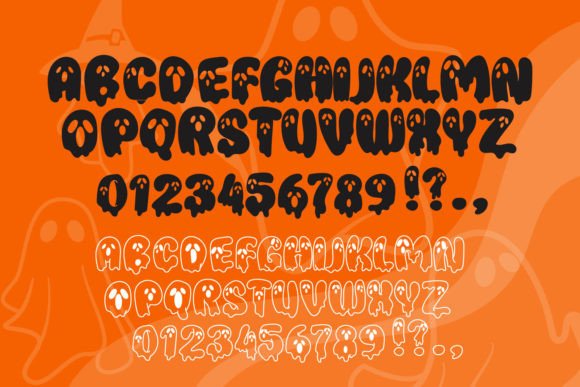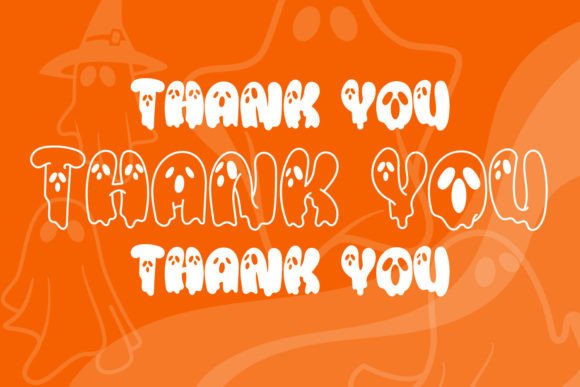
Introducing Ghosty Font: The Spookiest and Friendliest Typeface for Your Designs
Are you looking for a font that will add a playful and spooky touch to your designs? Look no further than Ghosty Font, a fun and unique typeface featuring letters shaped like friendly ghosts. Perfect for Halloween or any project that needs a whimsical and mysterious vibe, Ghosty Font is sure to delight designers and crafters alike.
What is Ghosty Font?
Ghosty Font is a digital typeface that features letters and numbers designed to look like friendly ghosts. The font is carefully crafted to be both spooky and approachable, making it perfect for a wide range of design projects. Whether you’re creating invitations for a Halloween party, designing a logo for a haunted house, or simply want to add a playful touch to your social media graphics, Ghosty Font is the perfect choice.
Key Features of Ghosty Font
- Unique and playful design: Each letter and number in Ghosty Font is designed to look like a friendly ghost, adding a touch of whimsy and fun to your designs.
- Perfect for Halloween: Ghosty Font is a great choice for any Halloween-themed design project, from party invitations to spooky decorations.
- Versatile: While Ghosty Font is perfect for Halloween, it’s also a great choice for any project that needs a playful and mysterious vibe, such as children’s designs, games, or educational materials.
How to Use Ghosty Font in Your Designs
Ghosty Font is a versatile typeface that can be used in a wide range of design projects. Here are a few ideas to get you started:
- Halloween party invitations: Use Ghosty Font to create spooky and fun invitations for your Halloween party.
- Social media graphics: Add a playful touch to your social media graphics with Ghosty Font, perfect for Halloween-themed posts or simply adding a bit of whimsy to your feed.
- Logo design: Use Ghosty Font to create a unique and memorable logo for your business or brand.
- Crafting projects: Ghosty Font is perfect for crafters who want to add a personal touch to their projects, such as handmade cards, gift tags, or decorations.
Tips for Getting the Most Out of Ghosty Font
Here are a few tips for getting the most out of Ghosty Font in your designs:
- Experiment with different colors: Ghosty Font looks great in a range of colors, from bright and bold to pastel and subtle.
- Combine with other fonts: Try pairing Ghosty Font with other fonts to create a unique and interesting look.
- Use in combination with images: Ghosty Font looks great when used in combination with images, such as illustrations or photographs.
Ghosty Font is a fun and unique typeface that’s perfect for adding a playful and spooky touch to your designs. With its friendly ghost design and versatile style, Ghosty Font is sure to delight designers and crafters alike. Whether you’re creating Halloween-themed designs or simply want to add a bit of whimsy to your projects, Ghosty Font is a great choice.